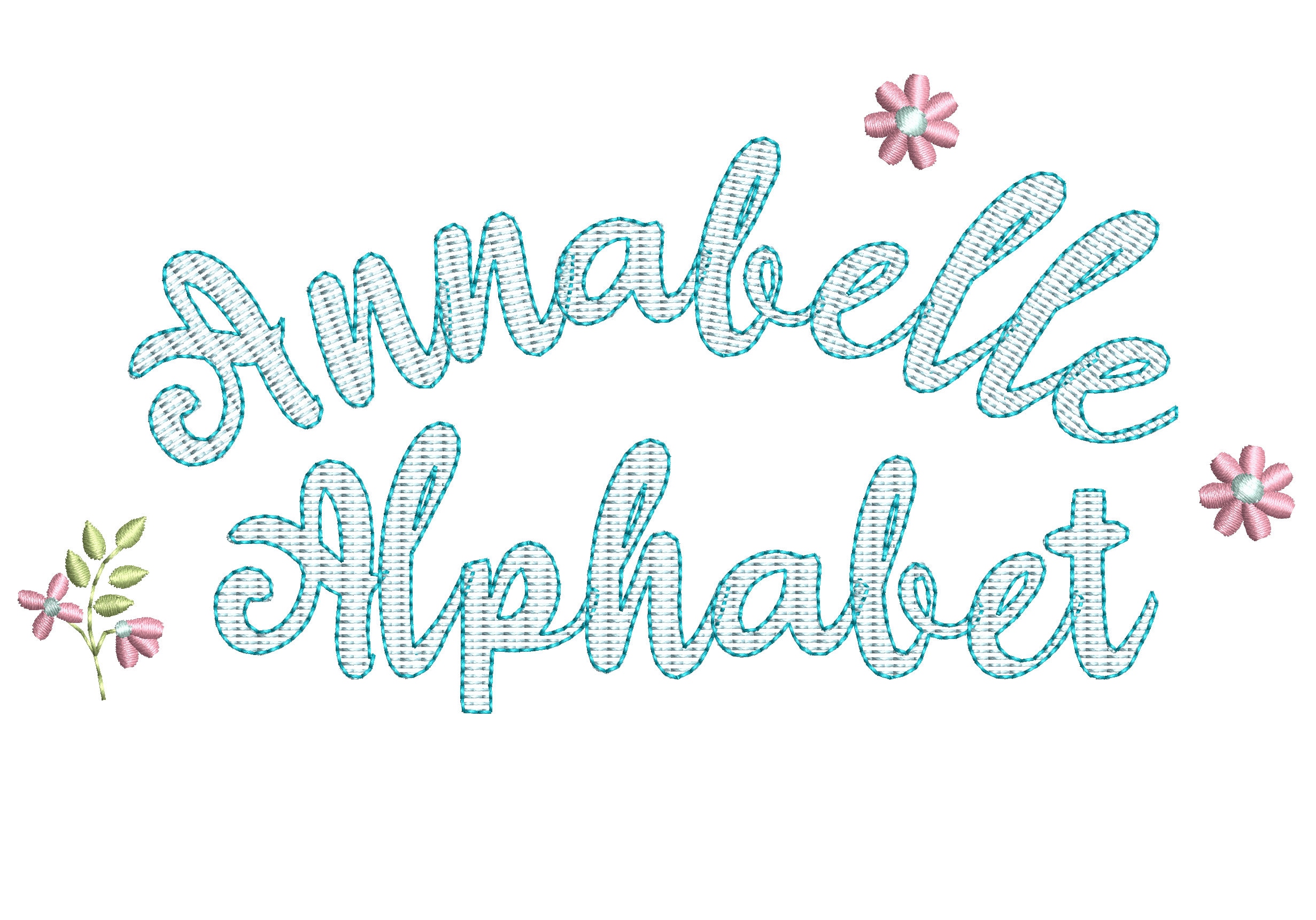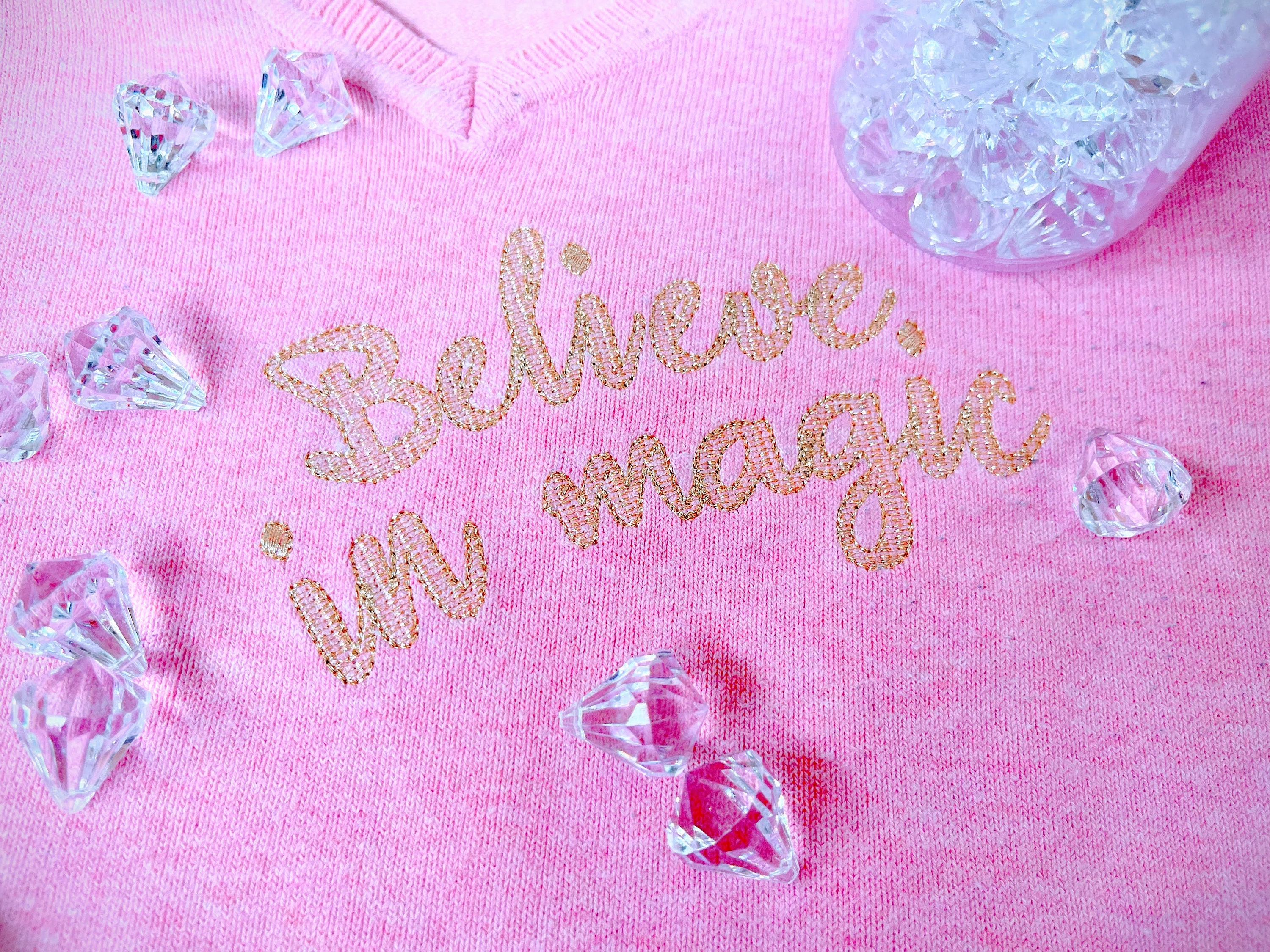
Light stitch or golden thread font light sketch outline machine embroidery designs alphabet letters less than 1 inch up to 3" BX vp3 xxx pes and others